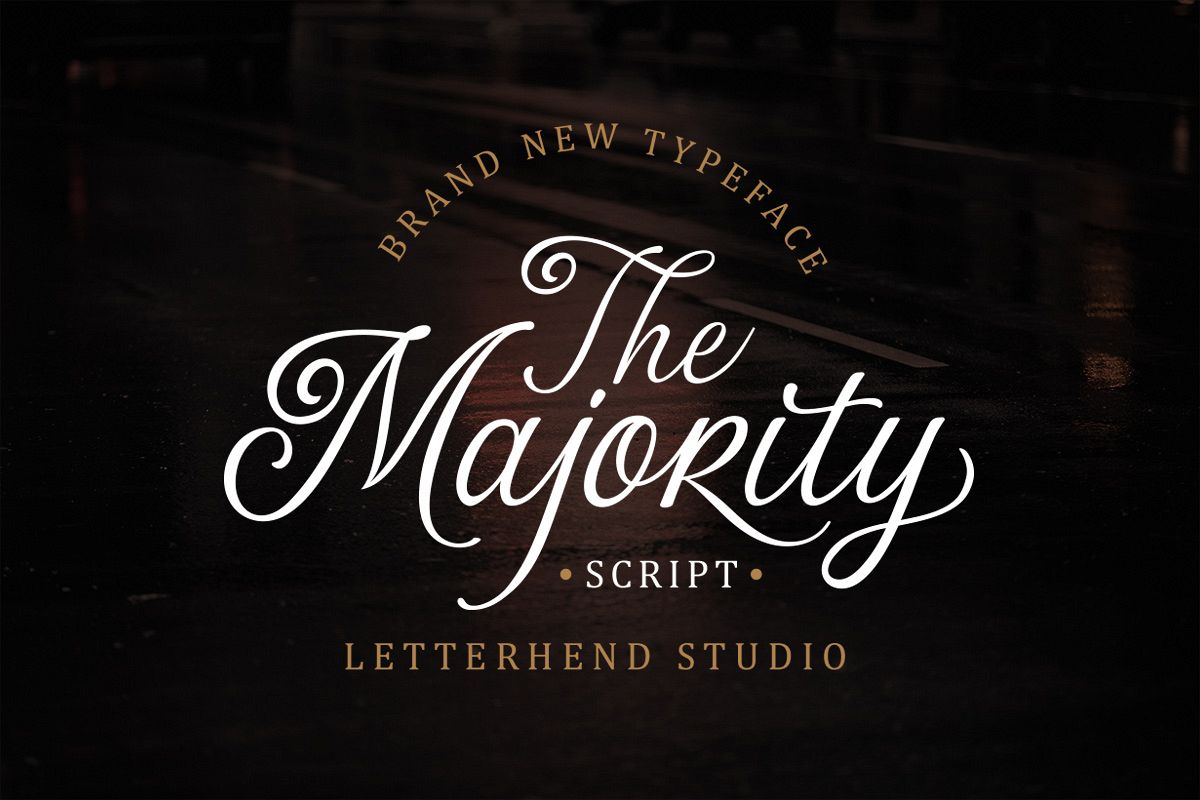
The Majority Script
Another one from us, The Majority Script. A classy script that beautifully flow and bring the luxury feel. This font is perfect to be used as tshirt design, logo / brand, signature, headline, lettering quotes, etc. It also comes in uppercase, lowercase, punctuations, symbols & numerals, stylistic set alternate, ligatures, etc also support multilingual.